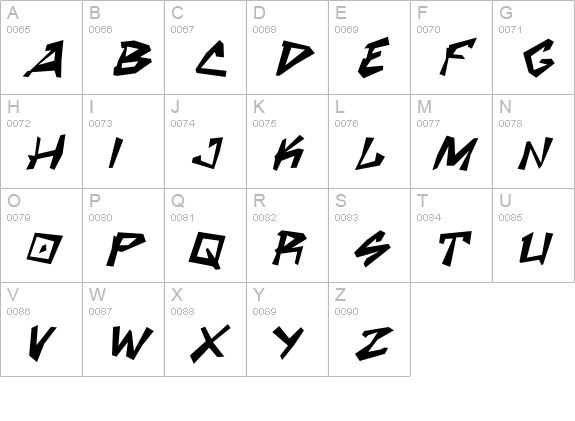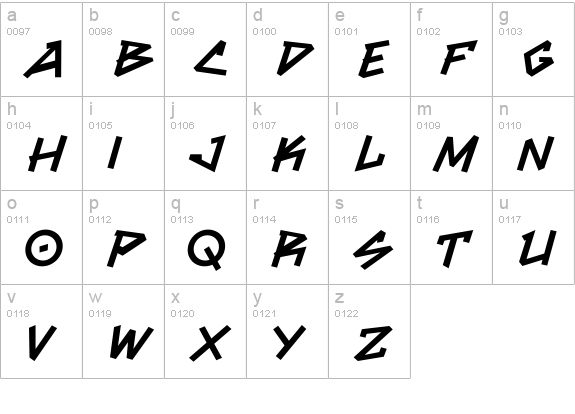
CCBithead-Byte Font Details
CCBithead-Byte is a futuristic and sleek font that will bring a modern edge to any project. With its sharp angles and clean lines, this font exudes a sense of innovation and technology. The unique design of CCBithead-Byte makes it perfect for digital displays, branding, and any creative project that requires a bold statement font. What sets CCBithead-Byte apart is that it is free to download. You can easily access this cutting-edge font at FontsMarket.com, where you can add it to your font library at no cost. With its striking appearance and accessibility, CCBithead-Byte is sure to become a staple in your design toolkit. Elevate your designs with CCBithead-Byte and unleash your creativity today.